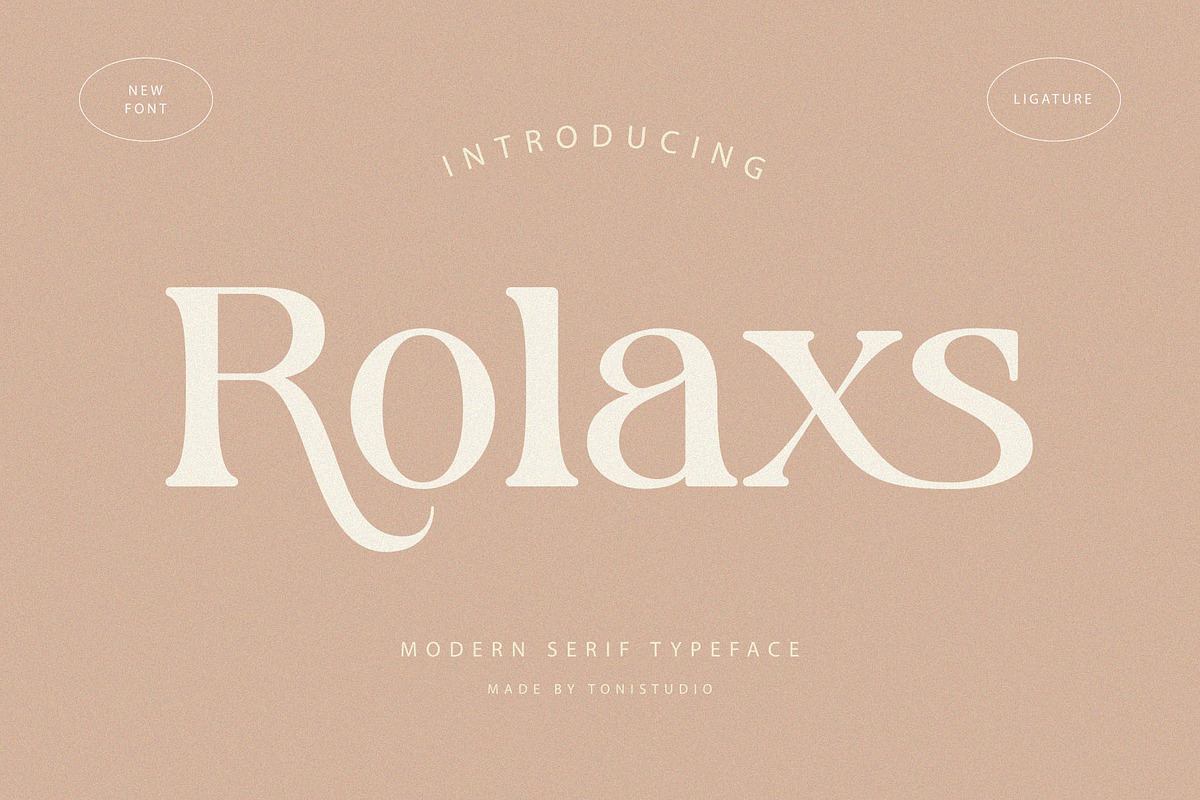
Rolaxs Font is perfect for luxury watch branding, high-end jewelry marketing, premium automotive advertising, exclusive club signage, sophisticated hospitality design, elite financial services, upscale real estate materials, and prestigious corporate communications.
What makes Rolaxs Font so exciting is its impeccable refinement that embodies the pinnacle of luxury typography through meticulously crafted letterforms that exude exclusivity and prestige. This premium serif typeface features elegant proportions with subtle sophisticated details that communicate uncompromising quality and timeless class. The font's distinguished appearance and luxurious character make it essential for brands that need to convey the highest levels of premium positioning and elite market status.
The Rolaxs Font family includes regular, light, and bold weights, along with refined italic variations and extended character sets that provide designers with comprehensive tools for creating sophisticated luxury brand experiences.
Rolaxs Font Free Download offers designers access to elite-level typography that perfectly captures the essence of luxury market leadership and premium brand positioning. This distinguished typeface excels in applications where exclusivity and prestige are fundamental brand attributes, making it ideal for luxury goods manufacturers, high-end service providers, exclusive venues, and premium lifestyle brands. The font's prestigious character makes it particularly suitable for luxury timepiece companies, fine jewelry houses, luxury automotive brands, and elite hospitality establishments.
The exquisitely balanced letterforms of Rolaxs Font ensure optimal legibility while maintaining their luxurious sophistication across all premium applications. Each character reflects exceptional craftsmanship and design excellence, creating text that appears effortlessly prestigious and professionally refined. This attention to typographic luxury makes the font suitable for both prominent luxury advertising and detailed premium communications where superior typography reinforces brand exclusivity.
For luxury brand communications, Rolaxs Font provides the perfect solution for companies seeking to establish ultimate premium positioning through typography that reflects their commitment to excellence and exclusivity. The font's distinguished luxury character allows it to communicate prestige and quality leadership while maintaining appeal to discerning audiences across print, digital, and environmental applications where luxury typography defines market positioning.